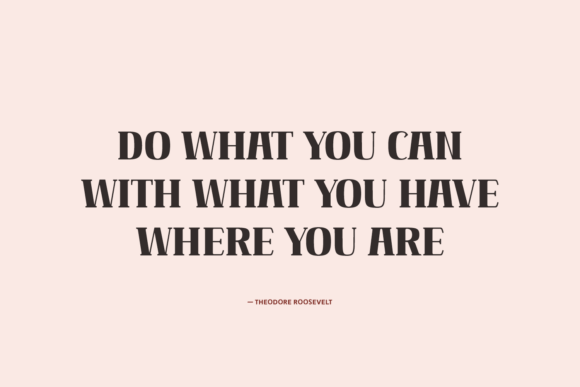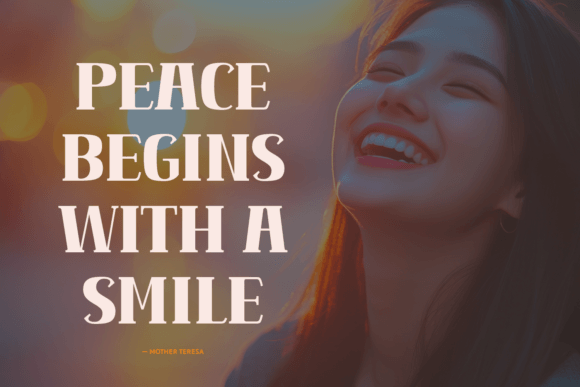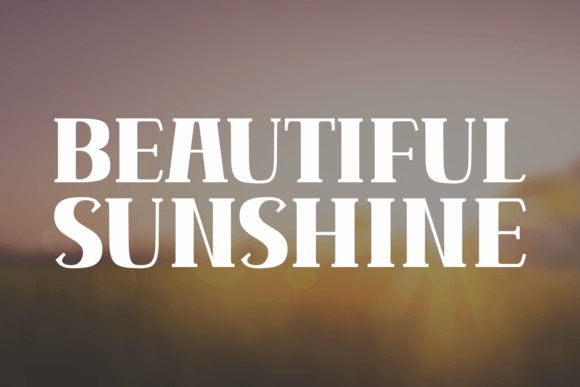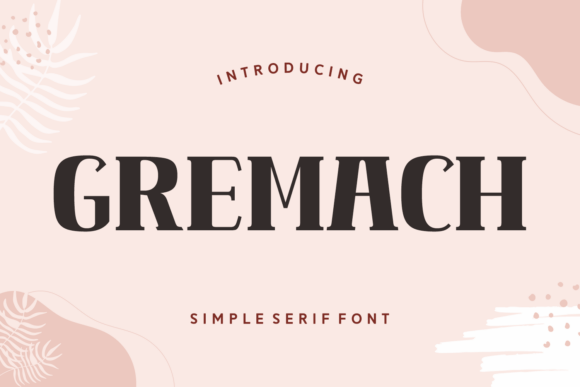
Gremach Font: Elevate Your Design with Classic Elegance
In the world of typography, fonts play a crucial role in conveying messages, expressing emotions, and creating lasting impressions. For designers and crafters, finding the perfect font can be a daunting task. However, if you’re looking for a simple yet bold serif font that exudes elegance and modernity, look no further than Gremach Font. In this article, we’ll explore the features, benefits, and uses of Gremach Font, and why it’s becoming a favorite among designers and crafters.
What is Gremach Font?
Gremach Font is a simple and bold serif font that features strong, classic letterforms. Its clean lines, precise curves, and balanced proportions make it easy to read and visually appealing. The font’s friendly and approachable style makes it perfect for a wide range of design projects, from headlines and titles to body text and more.
Key Features of Gremach Font
- Simple and Bold: Gremach Font boasts a bold and simple design that commands attention without overwhelming the reader.
- Serif Font: The font features classic serif letterforms that add a touch of elegance and sophistication to any design.
- Easy to Read: Gremach Font is optimized for readability, making it perfect for body text, headlines, and titles.
- Modern and Clear: The font’s clean lines and precise curves give it a modern and clear appearance that’s perfect for digital and print designs.
Benefits of Using Gremach Font
So, why should designers and crafters choose Gremach Font for their projects? Here are just a few benefits:
- Versatility: Gremach Font is versatile and can be used for a wide range of design projects, from branding and advertising to packaging and more.
- Elegance: The font’s classic serif design adds a touch of elegance and sophistication to any design.
- Readability: Gremach Font is optimized for readability, making it perfect for body text and headlines.
- Uniqueness: While Gremach Font is a classic serif font, its bold and simple design makes it stand out from more traditional serif fonts.
Uses of Gremach Font
Gremach Font is perfect for a wide range of design projects, including:
- Headlines and Titles: The font’s bold and simple design makes it perfect for headlines and titles that need to grab attention.
- Branding and Advertising: Gremach Font is versatile and can be used for branding and advertising projects that require a classic yet modern look.
- Packaging: The font’s clean lines and precise curves make it perfect for packaging designs that require a clear and elegant appearance.
- Digital and Print Designs: Gremach Font is optimized for both digital and print designs, making it a great choice for designers who work across multiple mediums.
Tips for Using Gremach Font
Here are a few tips for using Gremach Font in your design projects:
- Pair with Other Fonts: Gremach Font pairs well with other fonts, including sans-serif fonts and script fonts.
- Experiment with Colors: The font’s bold and simple design makes it perfect for experimenting with different colors and color combinations.
- Use for Headlines and Titles: Gremach Font is perfect for headlines and titles that need to grab attention.
In conclusion, Gremach Font is a simple yet bold serif font that features strong, classic letterforms. Its clean lines, precise curves, and balanced proportions make it easy to read and visually appealing. With its versatility, elegance, and readability, Gremach Font is perfect for a wide range of design projects, from headlines and titles to body text and more. Whether you’re a designer or crafter, Gremach Font is a great choice for adding a touch of elegance and modernity to your designs.